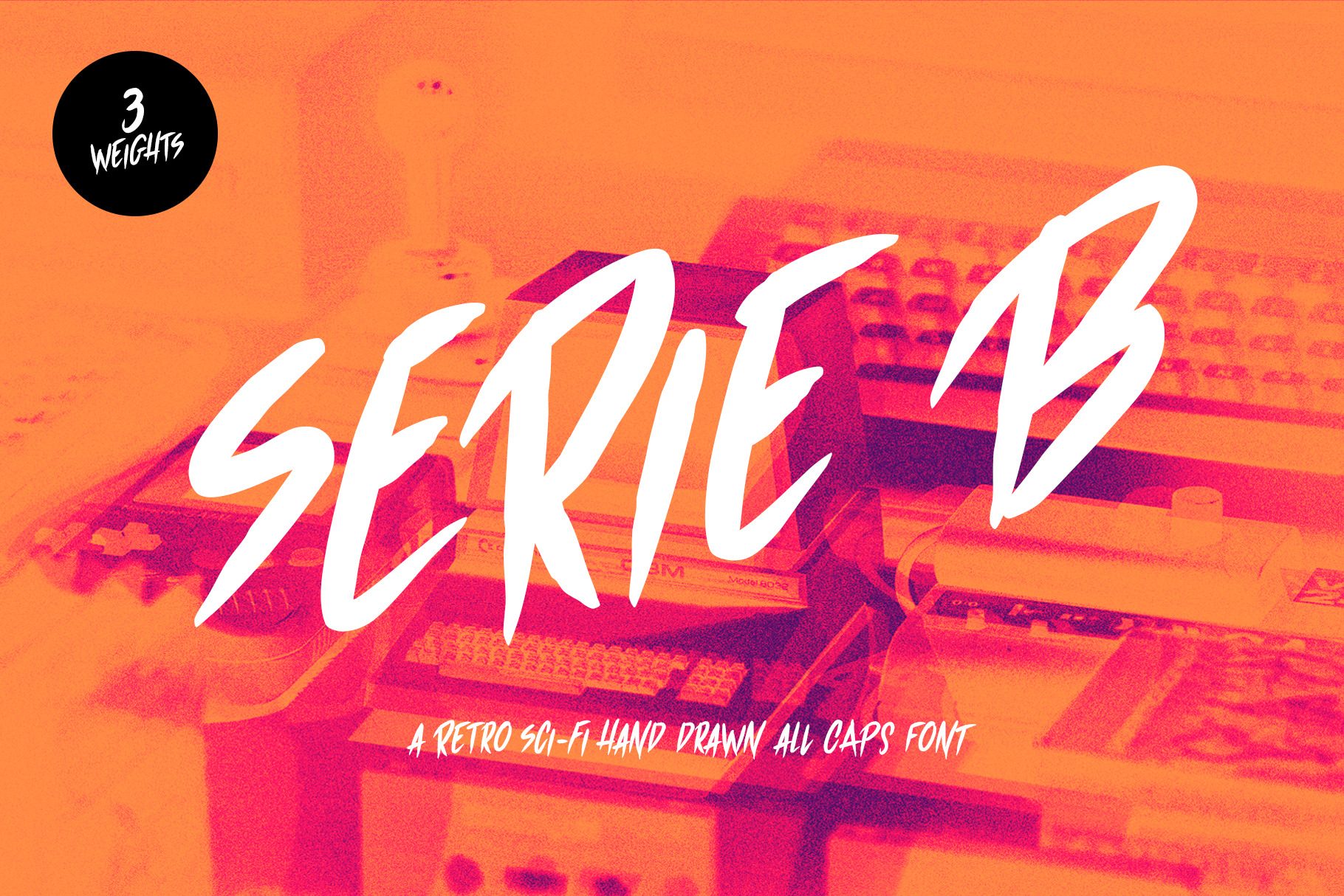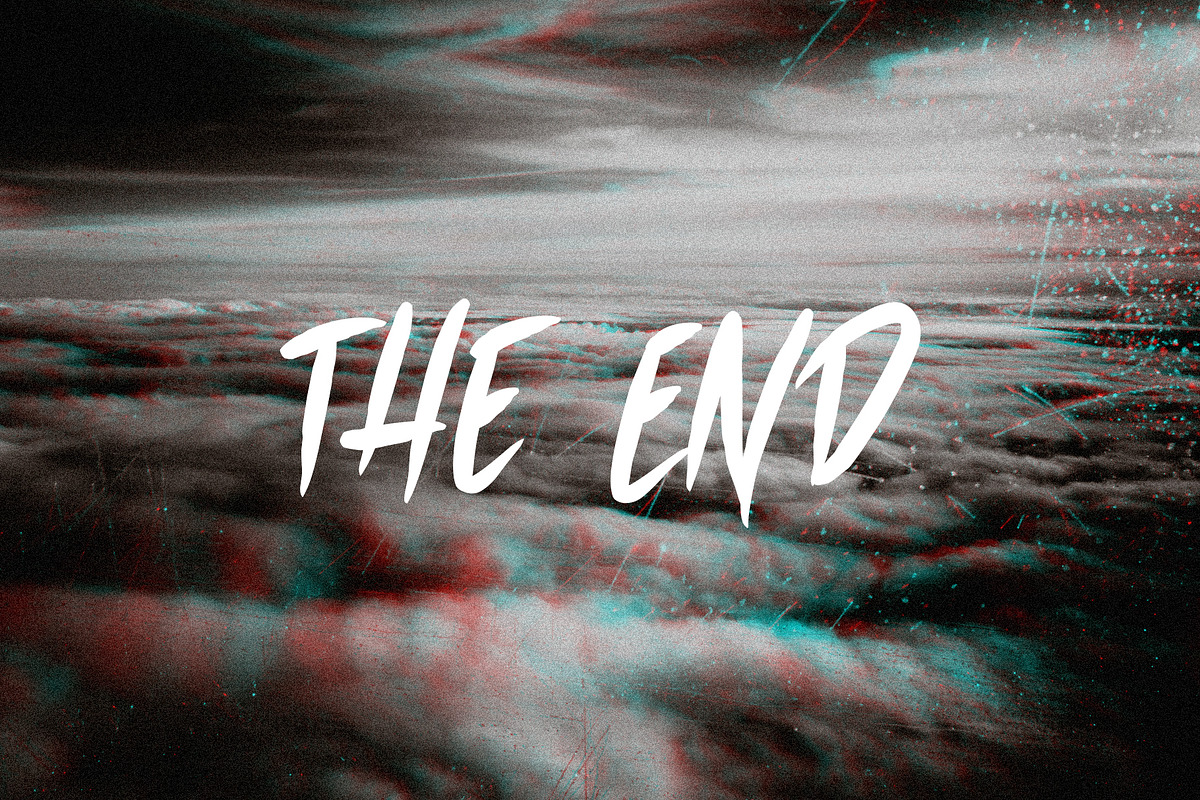
Serie B · 3 weights Brush Font
Serie B, a handwritten font, perfect for the hand drawn retro fonts lovers with a sci-fi and terror movie feel, but also with skate and surf vibes. You can use it for every project, personal or commercial. It looks great with big titles but also works perfectly on smaller paragraphs. This typeface comes in uppercase and use lowercase as uppercase alternates. Includes all punctuation, symbols and numerals and a complete set of accent characters in the 3 weights: medium, light and bold.
- Uppercase letters, uppercase alternate over lowercase, numbers, & extended punctuation
- Non-English support for the international designer
- 3 weight variation to fit better on every project: Medium, Light and Bold.